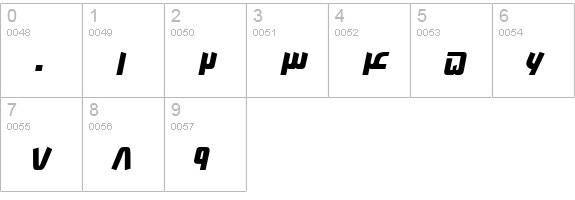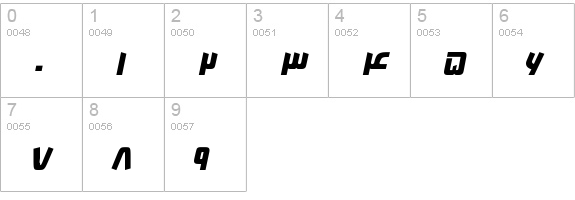
B Farnaz Font Details
B Farnaz is a stunning and versatile font that exudes elegance and sophistication. Its sleek and modern design makes it perfect for a wide range of design projects, from branding to editorial design. With its clean lines and balanced proportions, B Farnaz is sure to make a statement and elevate any design it is used in. The best part is that B Farnaz is available for free download at FontsMarket.com. This means that you can easily access this beautiful font and use it in your projects without any cost. Don't miss out on this amazing opportunity to add B Farnaz to your font collection and take your designs to the next level. Download B Farnaz now and let your creativity soar!